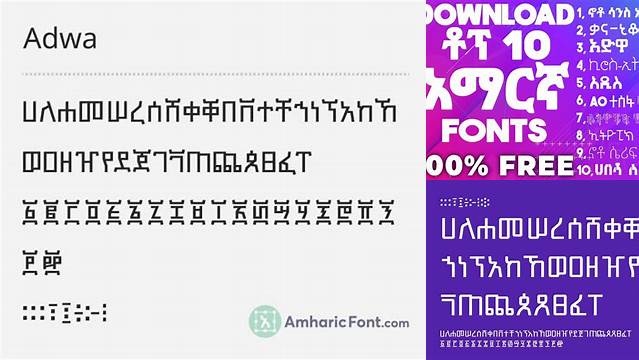
Adwa Amharic Font: Free Download and Guide for Stunning Ethiopian Typography
Hey everyone! Are you looking for a way to spice up your Ethiopian-themed projects or simply want to add some Amharic flair to your designs? Well, you're in luck! Today, we're diving deep into the world of the Adwa Amharic font. We will explore where you can get the Adwa Amharic font free download, how to use it, and why it's such a fantastic choice for all things related to Ethiopia's rich culture and language. Whether you're a seasoned designer, a student working on a project, or just curious about Amharic typography, this guide has got you covered.
What is the Adwa Amharic Font?
First things first, what exactly is the Adwa Amharic font? The Adwa font is a specially designed typeface that features Amharic script, the primary language of Ethiopia. It's more than just a collection of letters; it's a visual representation of a language with deep historical and cultural significance. This font captures the unique characteristics of the Amharic script, making it perfect for various applications, from digital designs to printed materials. The Adwa font is celebrated for its readability and aesthetic appeal, making it a popular choice for anyone wanting to incorporate Amharic text into their work. It is one of the many fonts created by Ethiopian designers to promote their language and culture.
When you're working with the Adwa font, you're not just typing; you're engaging with a piece of Ethiopian heritage. The design of the Adwa font is rooted in the traditional forms of Amharic script, which has been used for centuries in religious texts, literature, and everyday communication. The designers behind the Adwa font aimed to create a modern typeface that respects these traditions while also being suitable for contemporary design needs. This means that the font strikes a balance between historical accuracy and readability, making it accessible to a wide audience. The Adwa Amharic font is made to be as user-friendly as possible. It provides a smooth and visually pleasing experience for readers. Whether you are designing a website, creating educational materials, or preparing presentations, this font will make sure your Amharic text looks professional and well-presented.
How to Use the Adwa Amharic Font in Your Projects
- Digital Design: Use the font for creating stunning graphics, social media posts, and website content. The font's readability and aesthetic appeal will help make your Amharic text stand out.
- Printed Materials: Design brochures, posters, and flyers with Amharic text. The font ensures your printed materials look professional and visually appealing.
- Educational Resources: Create educational materials, such as textbooks, worksheets, and presentations, to teach Amharic. The font makes it easier for students to read and understand the text.
- Personal Projects: Use the font to create invitations, greeting cards, and other personal projects that feature Amharic text. It is a unique and meaningful way to express yourself.
When using the Adwa Amharic font, keep a few design tips in mind to make your projects look their best. First, consider the context of your project. If you are creating something for a formal setting, you may want to adjust the font size and spacing to make sure the text is easy to read. If you are going for a more casual look, you can try using the font in larger sizes and bolder styles. Also, be mindful of the font size, spacing, and color to ensure the text is easy to read and complements your overall design. Experiment with different font sizes and styles to find what works best for your project. Mix and match it with other fonts to create an exciting visual design that captures the essence of the Amharic language. The goal is to make sure your Amharic text is not only readable but also visually appealing and engaging.
Conclusion: Embrace the Adwa Amharic Font